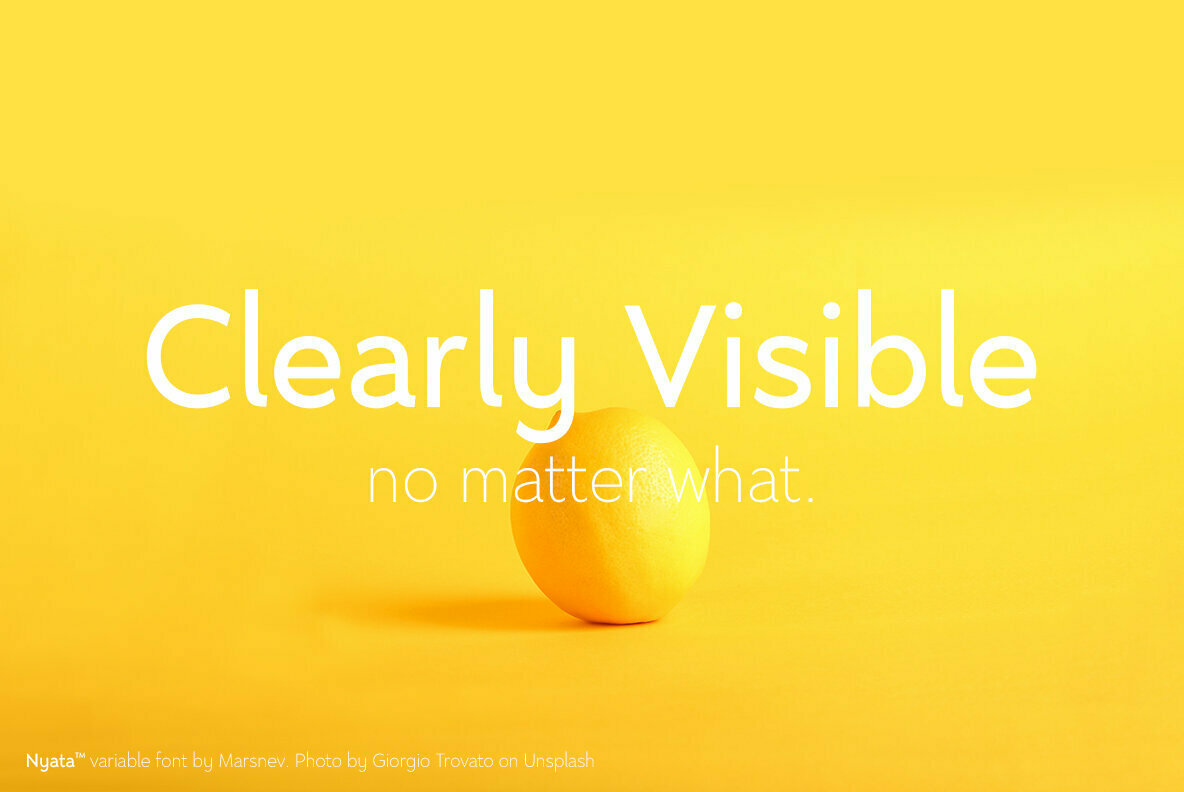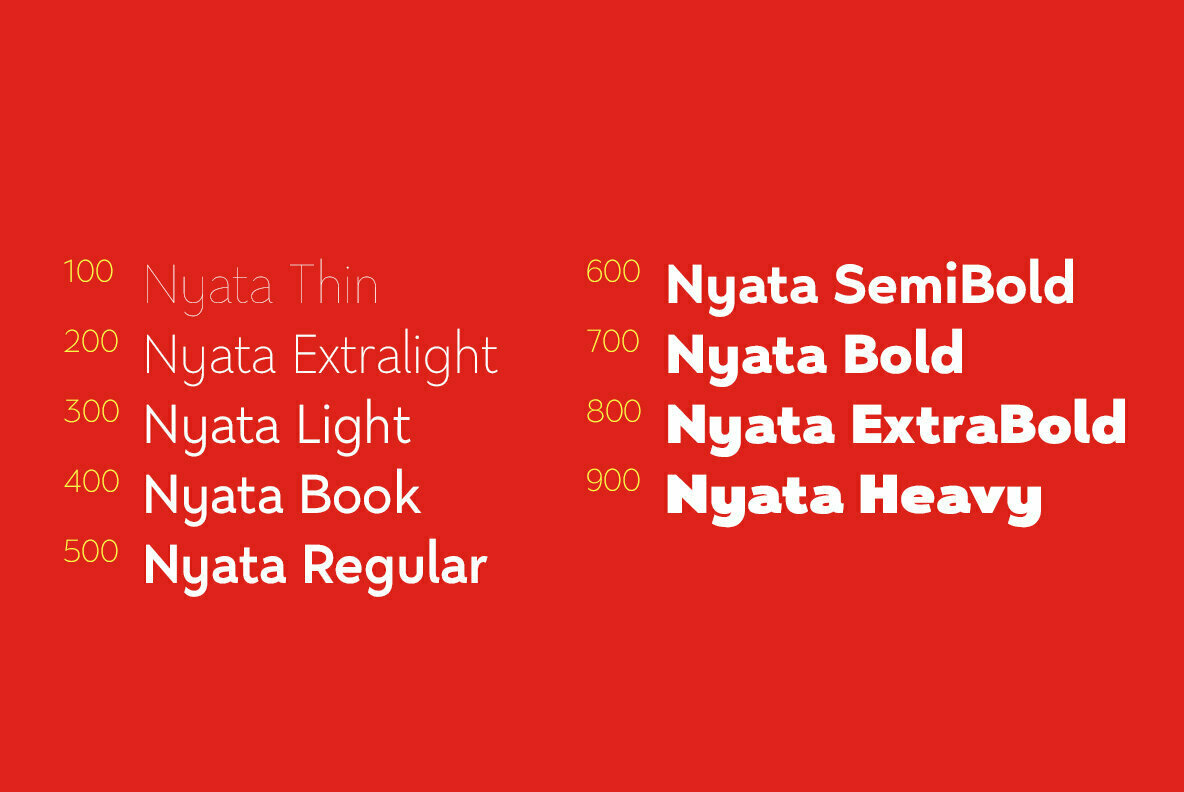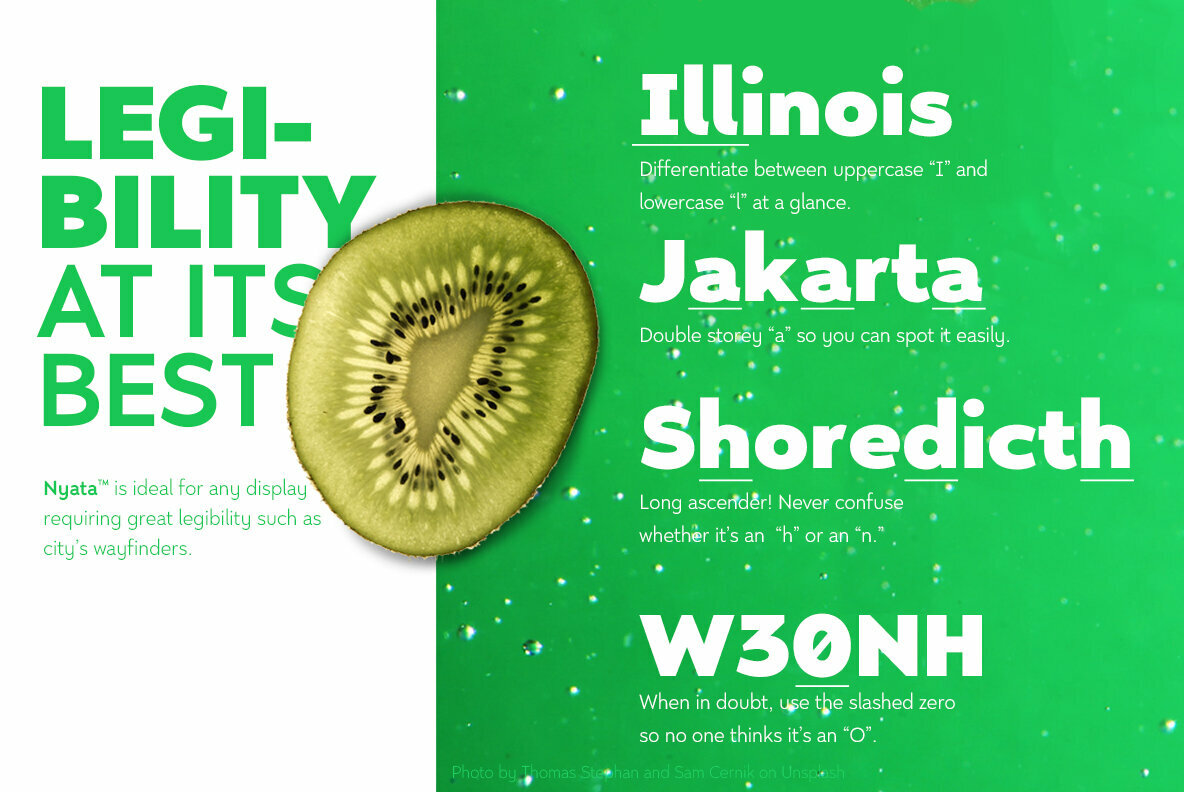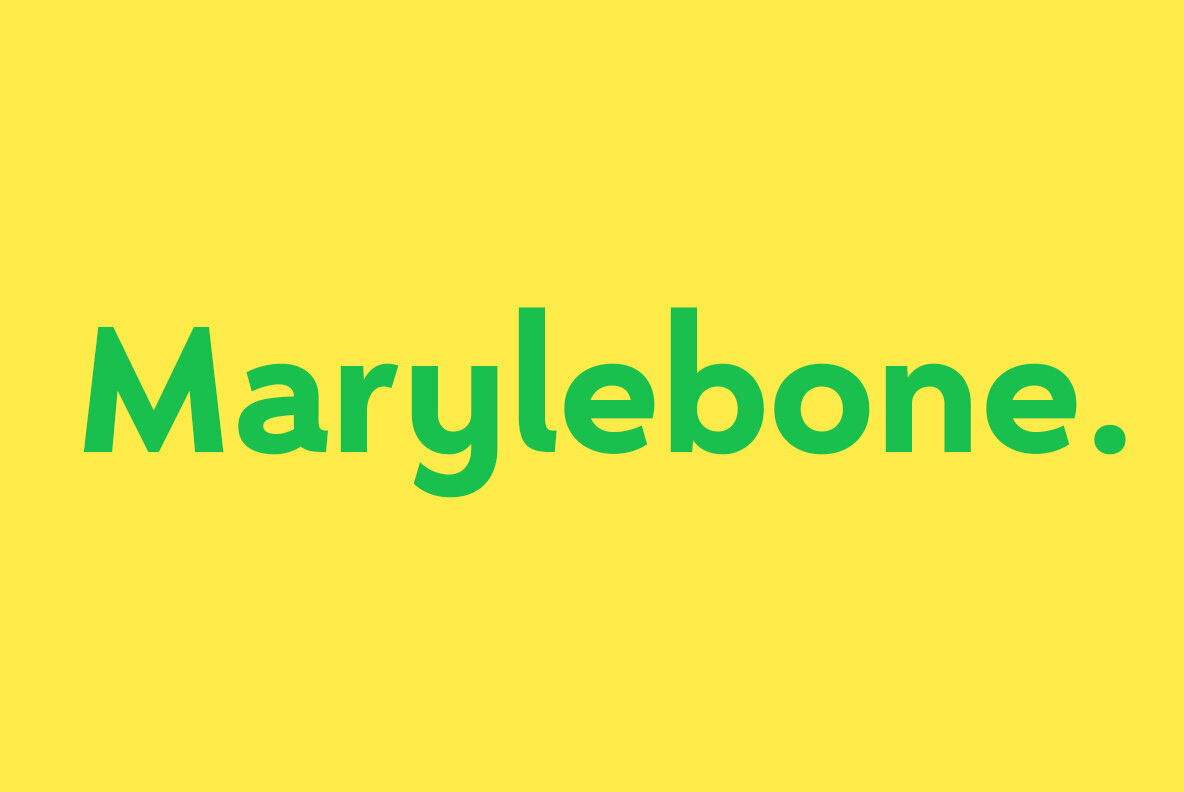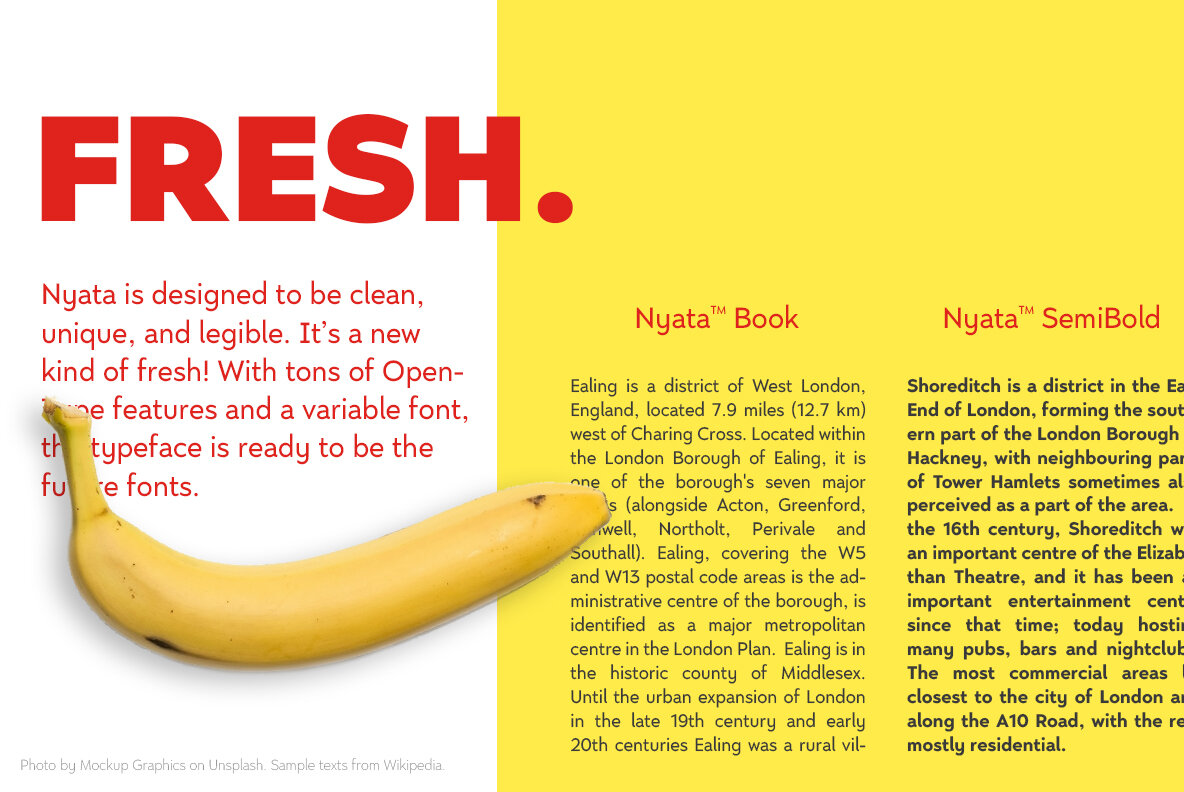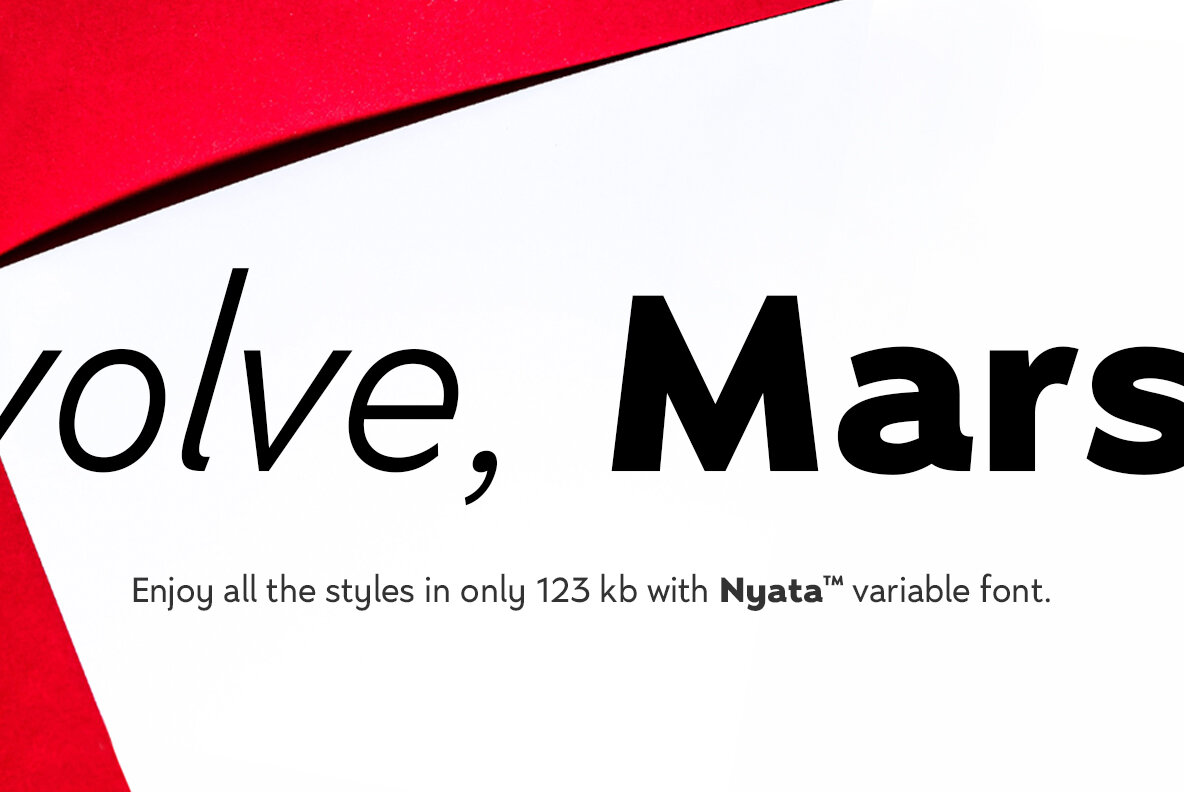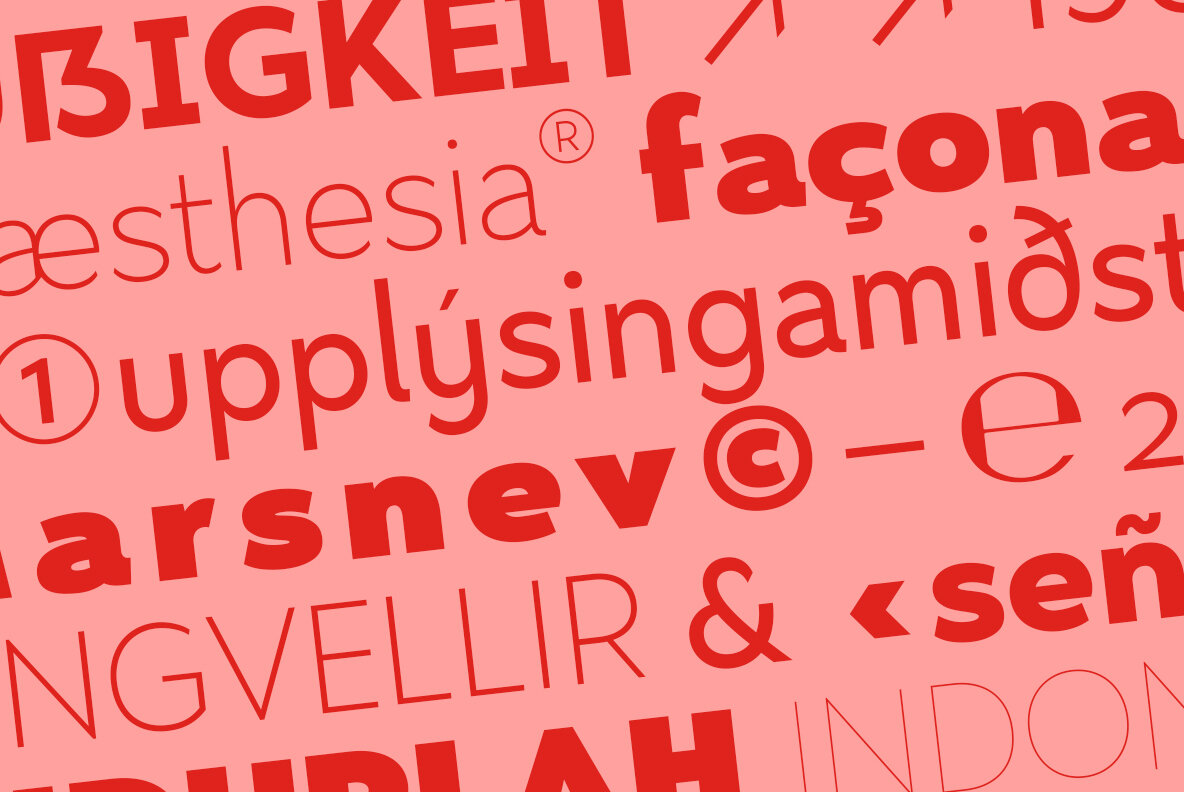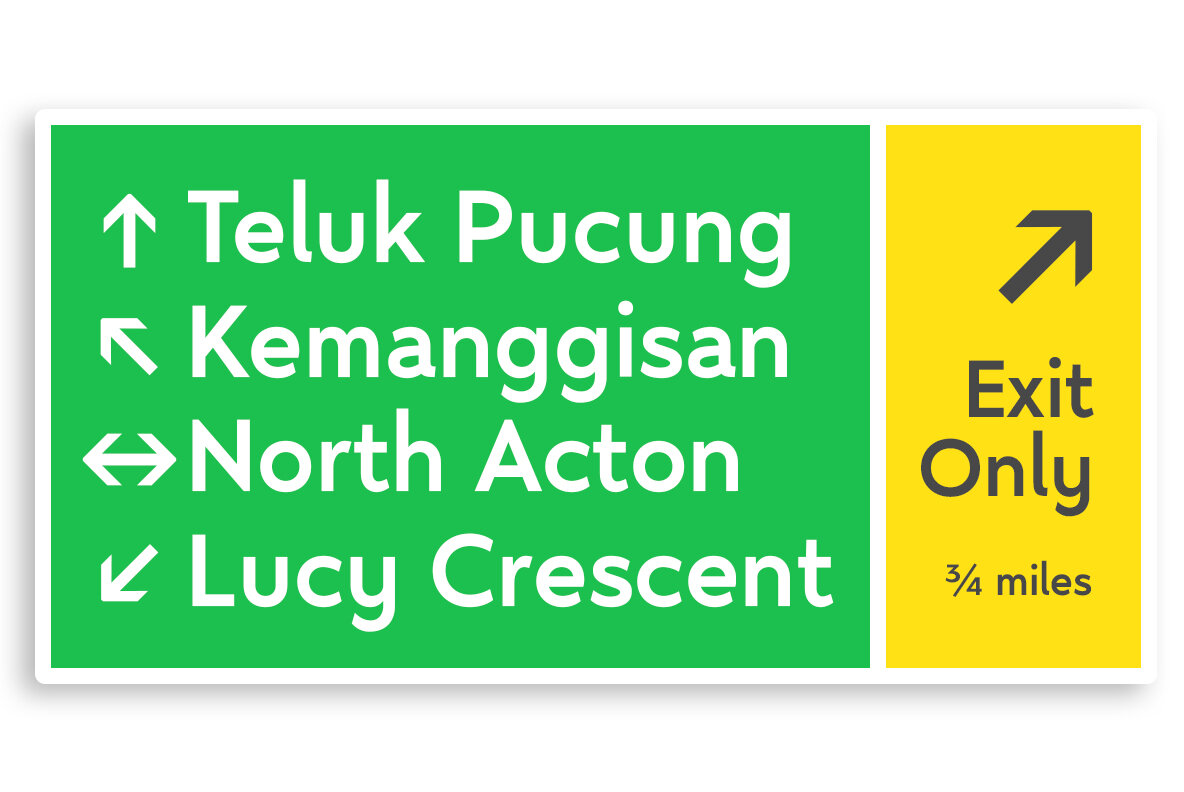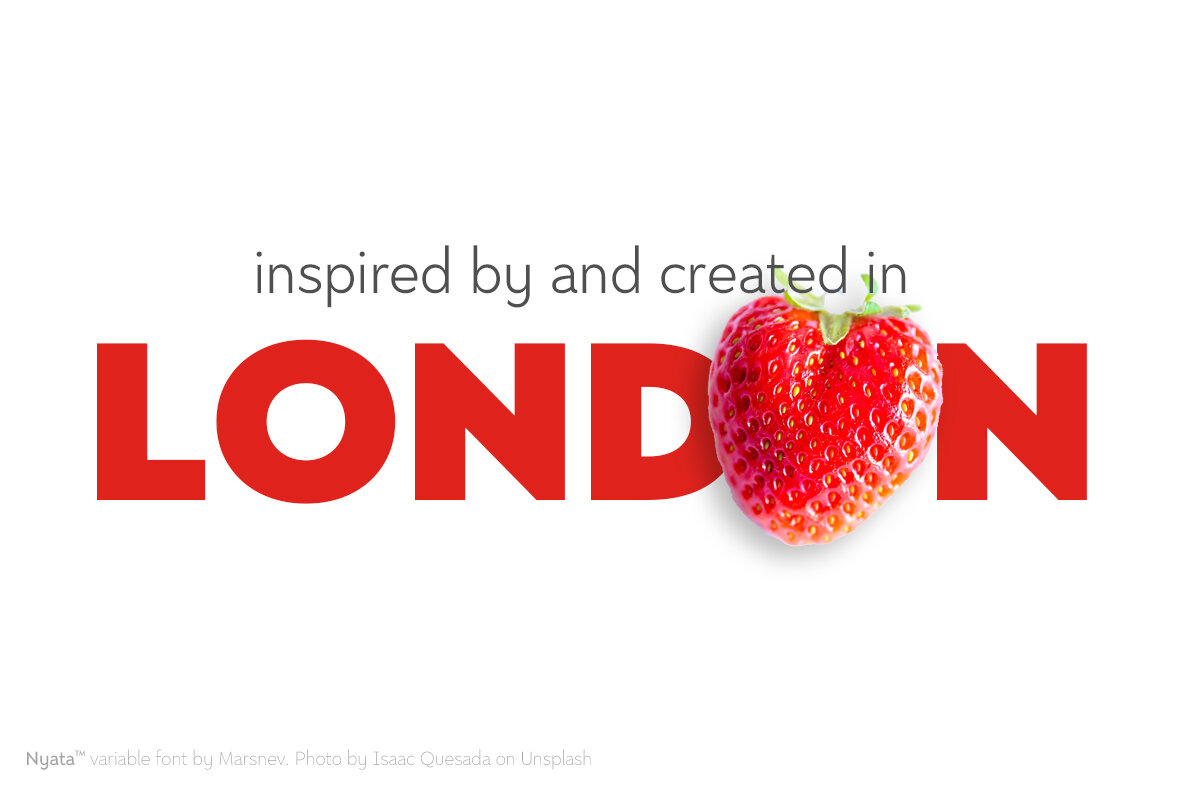
Nyata Font
I love London for its finest visual branding, especially its Johnston typeface spreading all over the city. It inspired me to create this new font family: Nyata.
Nyata means clearly visible in Indonesian. The typeface is designed to be clean, unique, and legible. It is a great combination for any display requiring high legibility, such as city’s way-finder.
Long ascenders help some characters more obvious. You will never confuse whether it is an h or an n. Moreover, I tried to create all the letters are distinguishable. Of course, no time for people to doubt between Uppercase “I” and lowercase “l” when seeing a way-finder. Last but not least, it is equipped with tons of OpenType features such as slashed zero to help the words more obvious, or stylistic sets if you don’t fancy the serifed uppercase I.
Nyata is also delivered in Variable Font format. Enjoy all the styles and everything in between in one variable font only sized less than 150kb.
MARSNEV is the creative alias of Muhammad Ariq Syauqi, an Indonesian type designer currently based in London. His work blends a sharp linguistic sensibility with the expressive spirit of graffiti, resulting in typefaces that feel both cerebral and urban. MARSNEV’s design perspective reflects a thoughtful play...